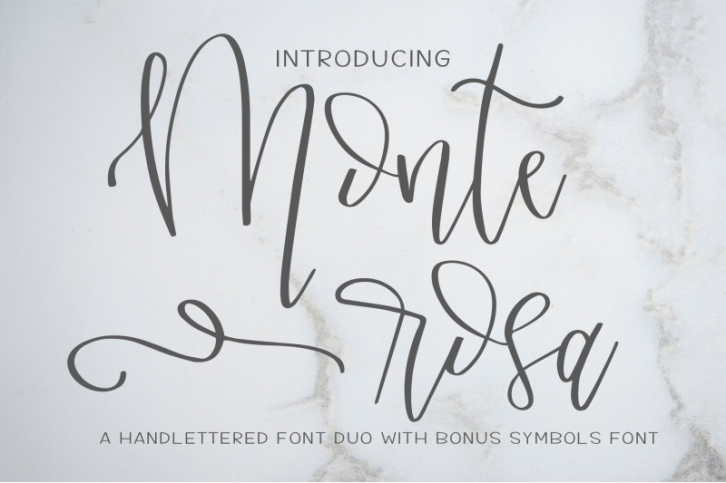
Monte Rosa is a hand-lettered font duo with a bonus symbols font! Use all three to create stunning designs for any use! Perfect for weddings, websites, products, greeting cards, and more! It contains a variety of ligatures, and stylistic alternates to add more variety to every word! Simply access them through the Glyphs palettes in programs like Illustrator or InDesign. If you don't have these programs, you'll still have access to all of the standard and international characters.
You will get three different font files to download, Monte Rosa script, Monte rosa symbols, and a condensed version of our soon to be released Sloan San Serif font. These fonts work seamlessly together to bring all your designing dreams to reality.
Includes a BONUS symbols font with over 50 symbols to use as accents. These symbols add a finishing touch to the font duo, and greatly enrich the text itself.